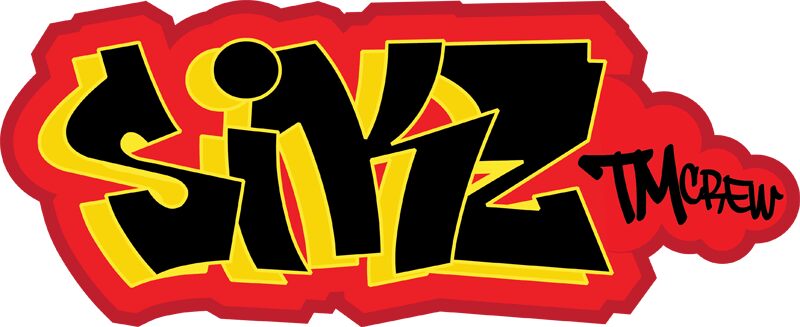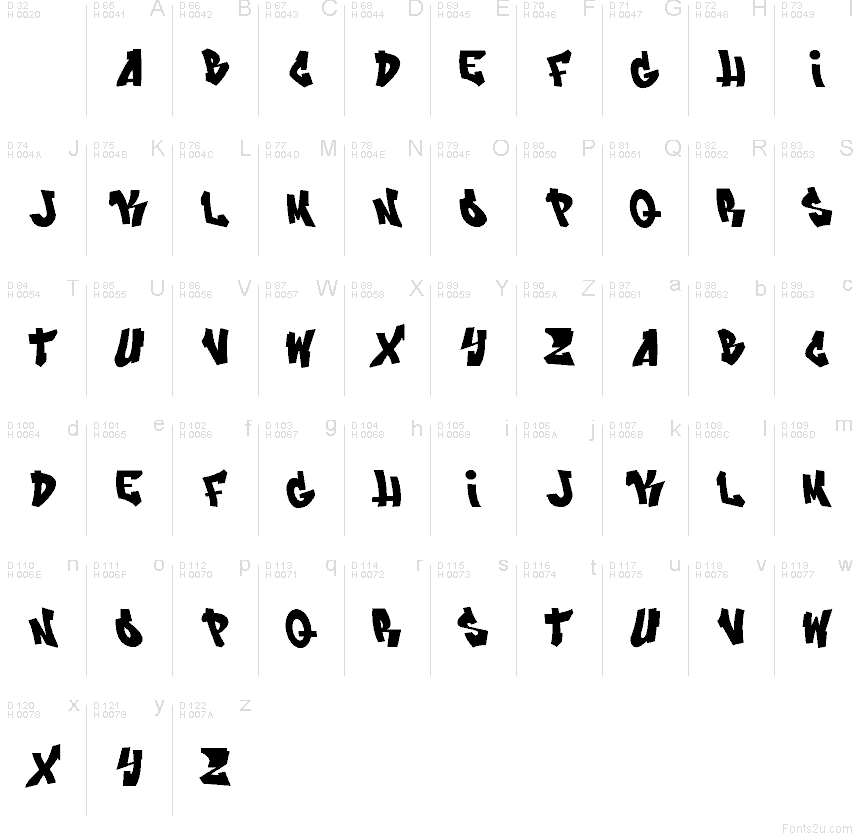
Sikz Tm Burner Public Style
Sikz Tm Burner Public Style font by CrazeCo.com.au is a free graffiti typeface in the bold, energetic Sikz family. Heavy black shapes slam into each other with sharp angles and exaggerated curves, like a fresh burner on a concrete wall. The letters feel hand-sprayed and slightly warped, giving your layouts that raw, street-bred swagger without losing legibility at a glance.
Using Sikz Tm Burner Public Style, you can drop instant attitude into album covers, streetwear branding, event posters, skate zines, YouTube thumbnails, and flyer designs. This free font thrives at large sizes where its chunky forms and wild rhythm can really shout. Pair it with a clean geometric sans for body text and let Sikz handle the loud headlines, logos, and wordmarks that need to hit like a paint-filled marker.